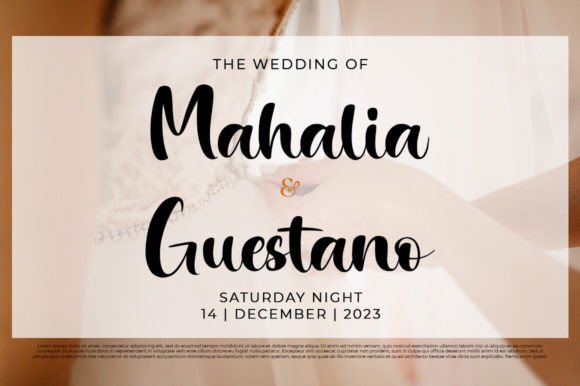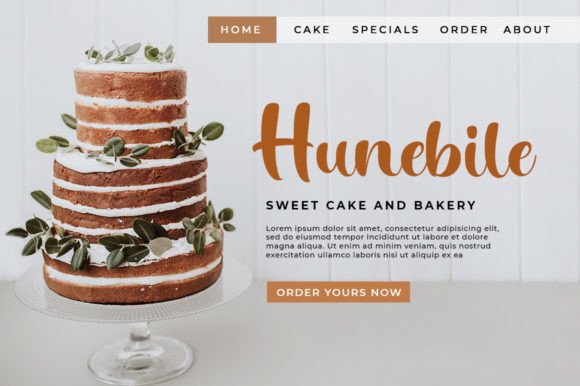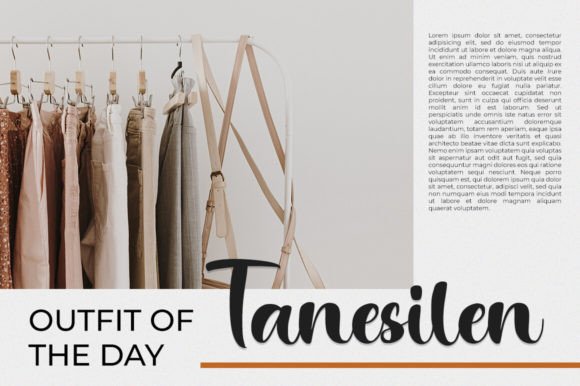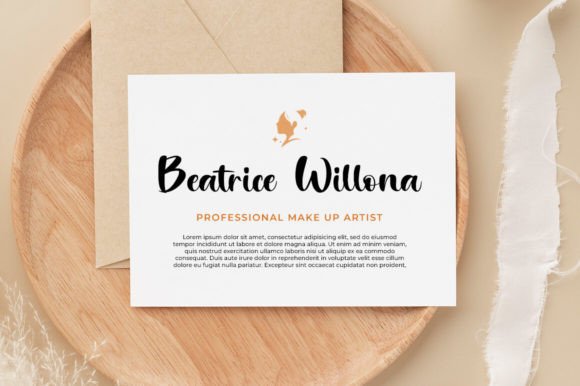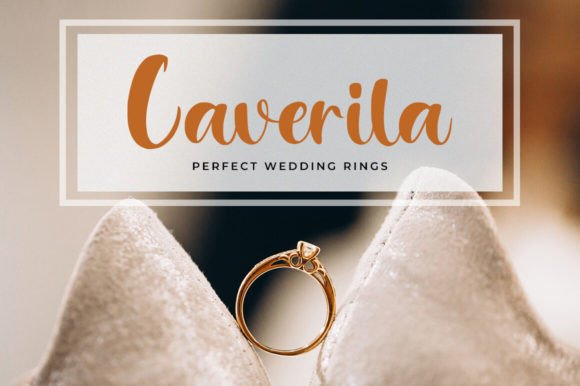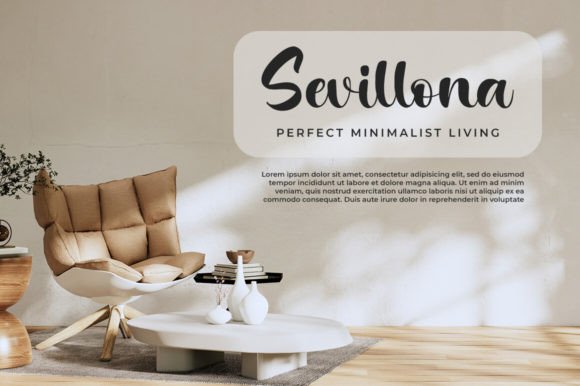
Introduction to Donevaria Font
The Donevaria Script offers gorgeous typographic perfect for many different projects such as logos & branding, invitations, stationery, wedding designs, social media posts, advertisements, product packaging, product designs, labels, photography, watermarks, special events or anything that needs handwriting taste.
Key Features of Donevaria Font
Why Choose Donevaria Font?
Donevaria Font offers exceptional quality and versatility, making it a valuable addition to your design toolkit. Whether you’re creating for personal projects or commercial use, Donevaria Font delivers professional results.